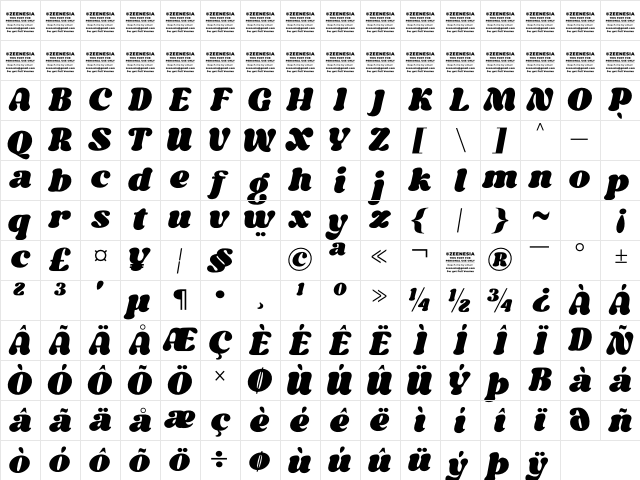
Night Michy Personal Use Only Regular Free Font
Night Michy Personal Use Only Regular
Design Context for Night Michy Personal Use Only
Night Michy Personal Use Only is a composed and adaptable typeface that performs quietly and consistently across a wide range of design contexts.
Pro Tip: Use Night Michy Personal Use Only in both headline and body roles to test its range before committing to a single application.